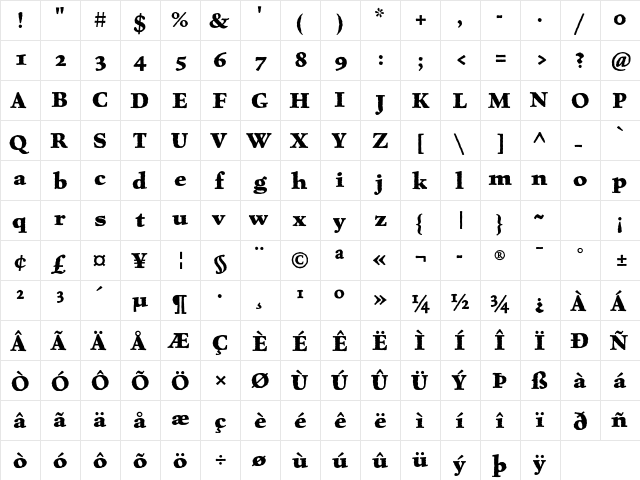
Celestia Antiqua Std Bold Font Preview
Celestia Antiqua Std Bold
Celestia Antiqua Std Bold Font Details
| Designer | Mark van Bronkhorst |
Design Context for Celestia Antiqua Std Typeface
Celestia Antiqua Std takes a measured approach to typography — its balanced proportions and neutral character make it a reliable workhorse for both digital and print work. The heavy weight commands attention and anchors typographic hierarchies.
Pro Tip: Pair Celestia Antiqua Std with a font of contrasting weight or personality to build a more expressive typographic hierarchy.